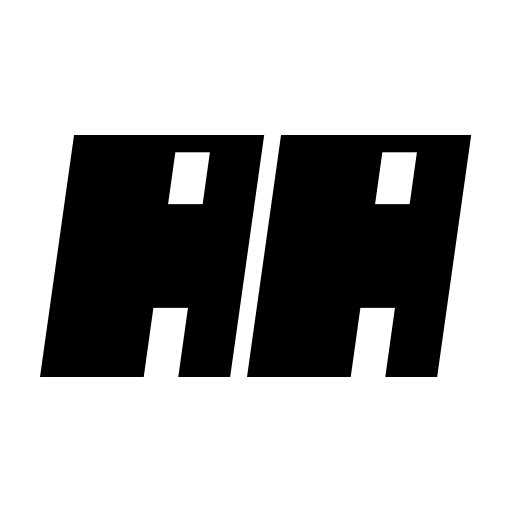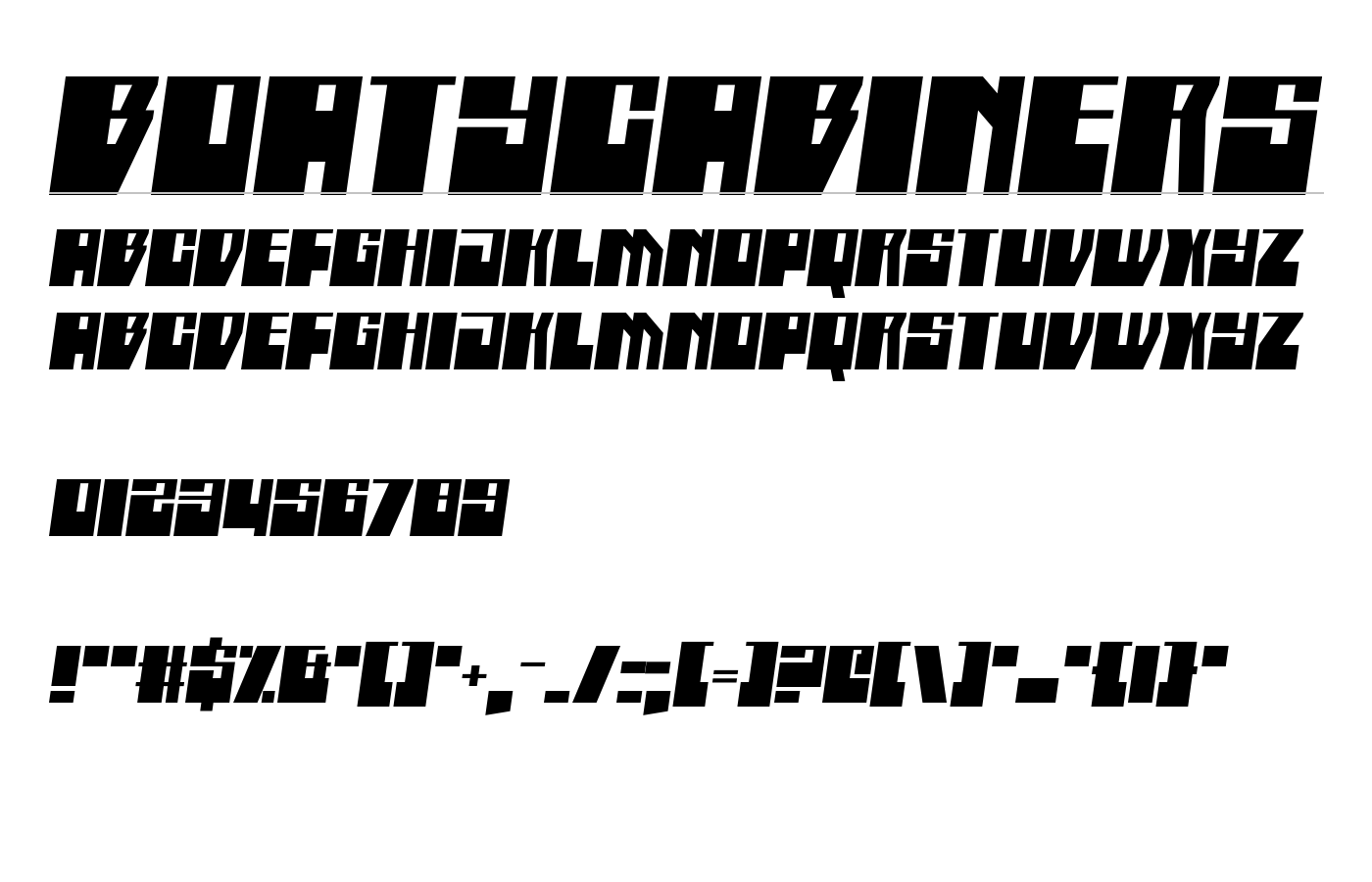
Boatycabiners is a bold, condensed sans serif font with a strong, angular design that conveys energy and modernity. Its sharp, geometric shapes and italicized slant give it a dynamic and impactful look, making it ideal for headlines, logos, and branding where a striking, assertive presence is needed. This font works well for creative projects with a futuristic or sporty vibe that require attention-grabbing typography.
Boatycabiners Font
About Boatycabiners Font